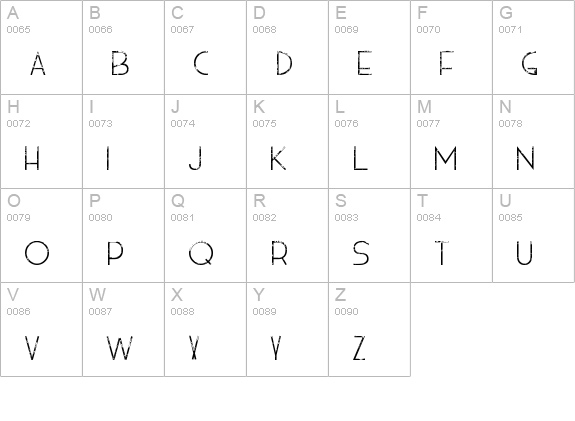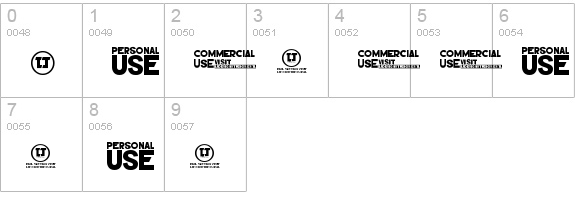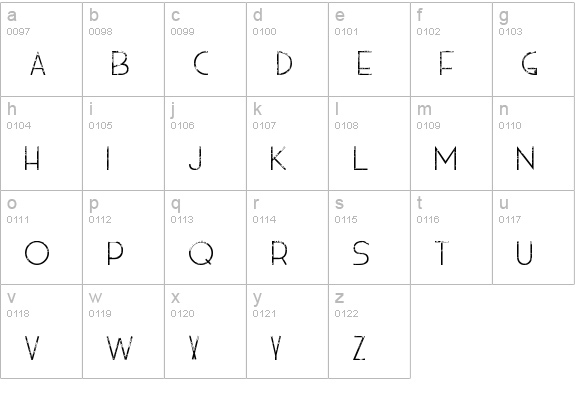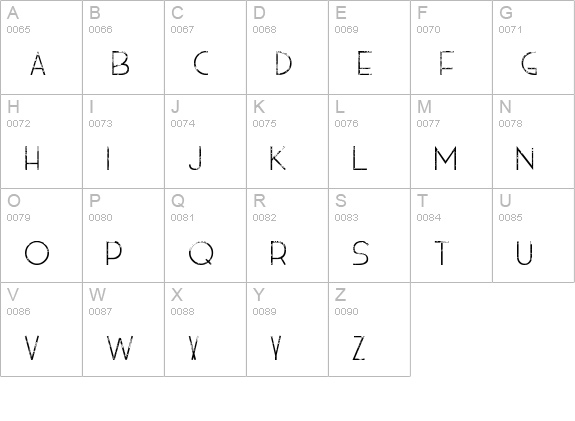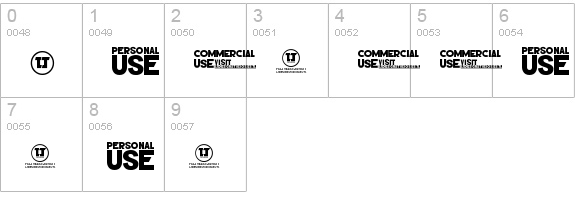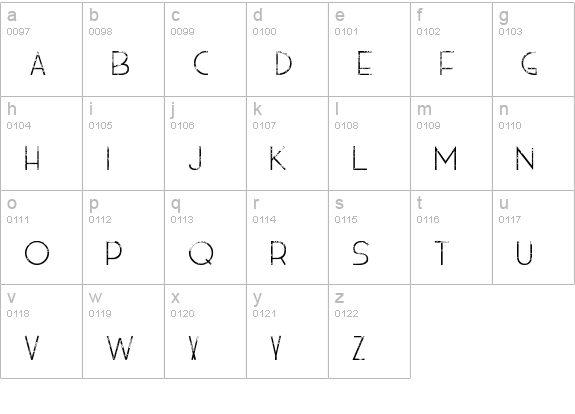
HIELO ice Font Details
Introducing HIELO ice font, a stunning and unique typeface that will bring a touch of icy elegance to your designs. This frosty font is perfect for adding a cool and refreshing twist to any project, whether it's a logo, headline, or any creative design that needs a touch of frosty flair. HIELO ice font features beautifully crafted letters that are reminiscent of frozen ice crystals, with sharp edges and intricate details. Each character has been meticulously designed to capture the essence of ice, creating a font that is both visually striking and full of character. But what sets HIELO ice font apart is that it's not just visually captivating, it's also free! That's right, this amazing font is freely available to download at FontsMarket.com. Now you can add a touch of frosty magic to your designs without breaking the bank. Whether you're working on a winter-themed project, a beverage advertisement, or simply want to add a touch of elegance to your designs, HIELO ice font is the perfect choice. With its sleek and sophisticated look, this font will make your designs stand out and leave a lasting impression. So why wait? Download HIELO ice font today from FontsMarket.com and let your creativity soar. Whether you're a professional designer or someone who loves experimenting with different fonts, this free ice font is sure to become a favorite in your font collection. Embrace the cold and add a touch of icy beauty to your designs with HIELO ice font.